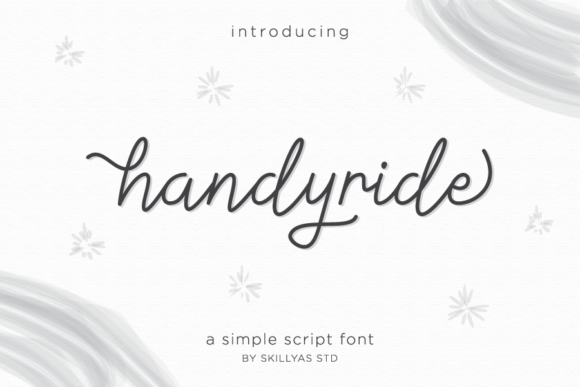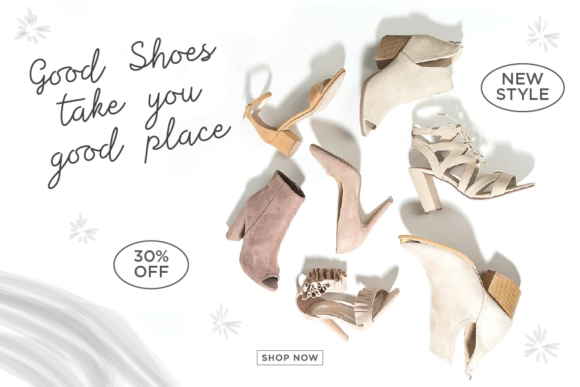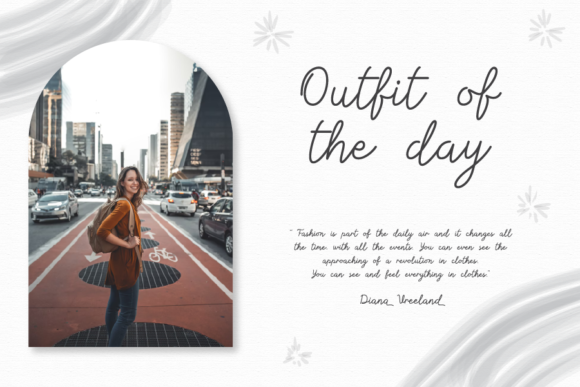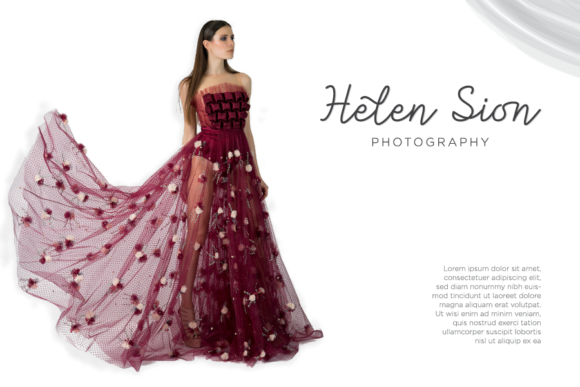
Handyride Font
About Handyride Font
Handyride is a lovely and timeless handwritten font. It is the best choice for creating eye catching logos, branding and quotes. This font is PUA encoded which means you can access all of the glyphs and swashes with ease!